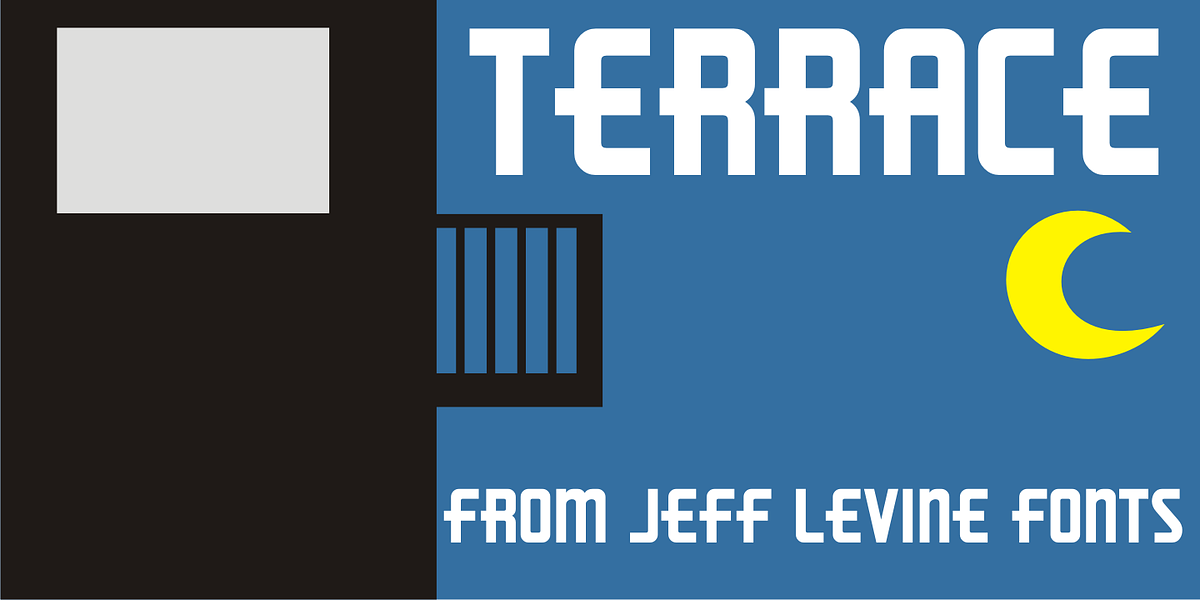
Terrace JNL
Terrace JNL is a bold, sturdy Art Deco titling face based on hand lettering found on the cover of some 1940s-vintage sheet music for the organ.